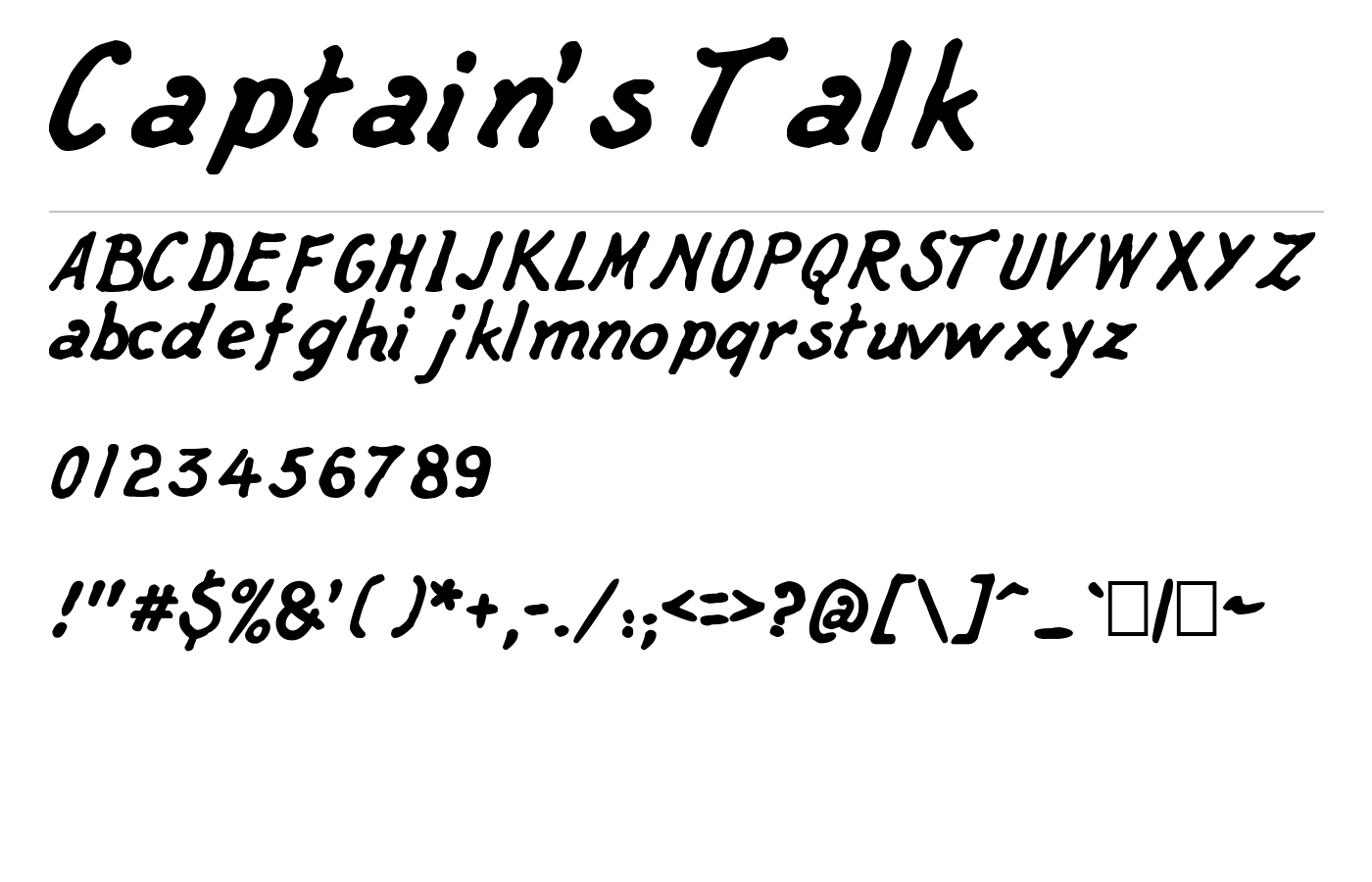
Captain's Talk is a casual, handwritten-style sans serif font with a playful and informal character. Its irregular strokes and slightly slanted letterforms give it an organic, approachable feel, making it ideal for creative projects, friendly branding, and expressive headlines. This font works well where a personal, relaxed tone is desired, adding warmth and uniqueness to designs.
Captain's Talk Font
About Captain's Talk Font
| Font family | Captain's Talk Font |
| Designer | Imagex |